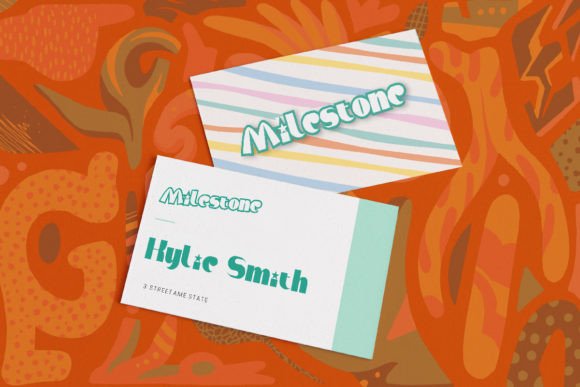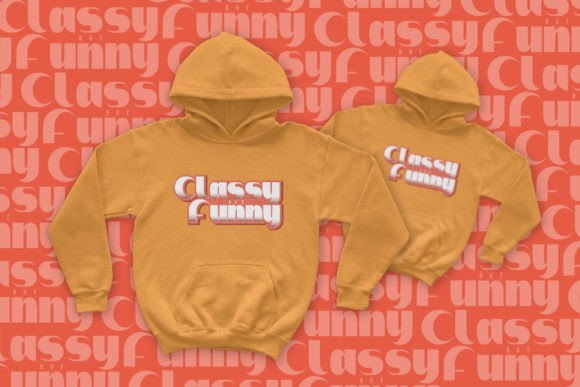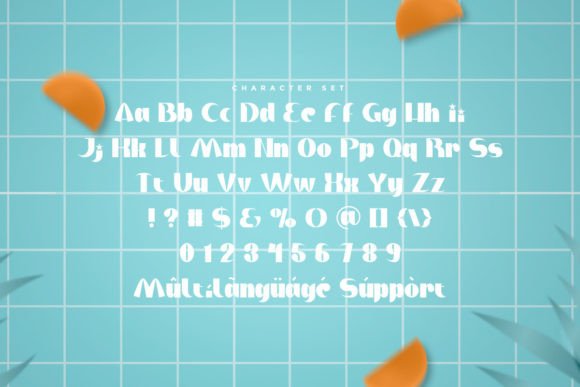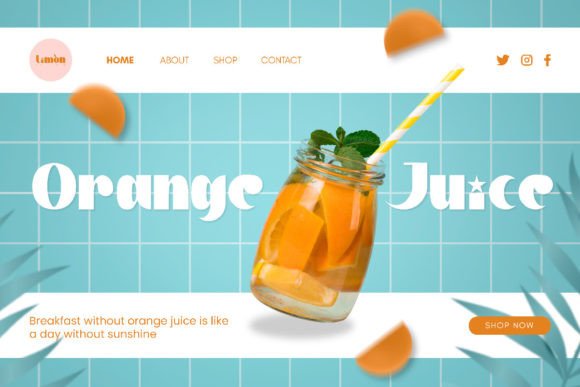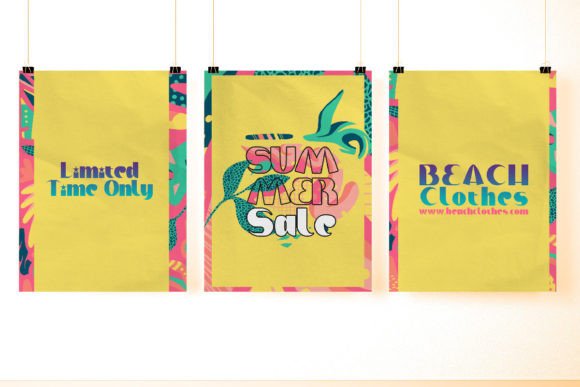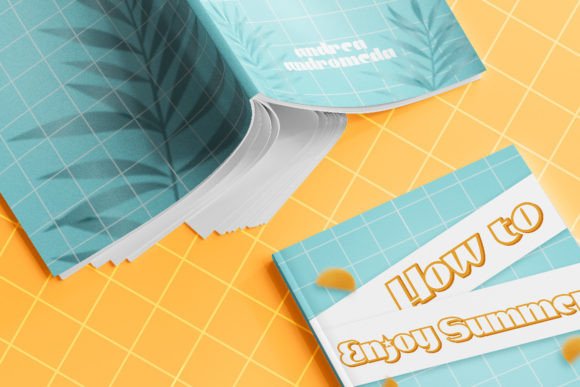
Introducing Democratic Font: A Patriotic Sans Serif Display Font
In the world of typography, fonts play a crucial role in conveying messages, expressing emotions, and creating visual identities. For designers, crafters, and businesses, finding the right font can be a daunting task. However, if you’re looking for a font that embodies the spirit of democracy, freedom, and modernity, look no further than Democratic Font. Created by EdricStudio, this patriotic sans serif display font is a perfect blend of classy and modern styles, inspired by the writing style of demonstrators who represent the voice of the people through their actions.
A Versatile Font for Various Industries
Democratic Font is an incredibly versatile typeface that can be applied to a wide range of industries and projects. Whether you’re working on apparel, author, drink, fashion, entertainment & TV show, food, homeware, journalism, movie, publishing, or any other creative endeavor, this font is sure to match your needs. Its unique and modern design makes it an excellent choice for designers and businesses looking to create a strong visual identity.
Comprehensive Character Set
Democratic Font comes with a full set of uppercase and lowercase basic characters, numbers, a large range of punctuation, and symbols. This comprehensive character set ensures that you have everything you need to create stunning visual content. The font has a stunning character set, perfectly managed with well-spaced and kerning, making it easy to read and visually appealing.
Perfect for Various Projects
Democratic Font is ideal for a wide range of projects, including blog headers, brochures, business cards, posters, printed materials, product packaging, titles, and more. Its modern and classy design makes it perfect for designers and businesses looking to create a professional and eye-catching visual identity. With Democratic Font, you can add a touch of patriotism and modernity to your designs, making them stand out from the crowd.
Key Features of Democratic Font
- Patriotic sans serif display font: Democratic Font is a unique and modern font that embodies the spirit of democracy and freedom.
- Classy and modern styles: This font combines classy and modern styles, making it perfect for designers and businesses looking for a sophisticated visual identity.
- Inspired by demonstrators: Democratic Font is inspired by the writing style of demonstrators who represent the voice of the people through their actions.
- Comprehensive character set: This font comes with a full set of uppercase and lowercase basic characters, numbers, a large range of punctuation, and symbols.
- Well-spaced and kerning: The font has a stunning character set, perfectly managed with well-spaced and kerning, making it easy to read and visually appealing.
Why Choose Democratic Font?
Democratic Font is an excellent choice for designers and businesses looking for a font that embodies the spirit of democracy, freedom, and modernity. Here are some reasons why you should choose Democratic Font:
- Unique and modern design: Democratic Font has a unique and modern design that will make your designs stand out from the crowd.
- Versatile: This font can be applied to a wide range of industries and projects, making it a great investment for designers and businesses.
- High-quality: Democratic Font is a high-quality font that is perfect for professional designs.
In conclusion, Democratic Font is a patriotic sans serif display font that combines classy and modern styles, making it perfect for designers and businesses looking for a sophisticated visual identity. With its comprehensive character set, well-spaced and kerning, and versatile design, Democratic Font is an excellent choice for a wide range of projects and industries. Whether you’re looking to create a strong visual identity or add a touch of patriotism and modernity to your designs, Democratic Font is an excellent choice.